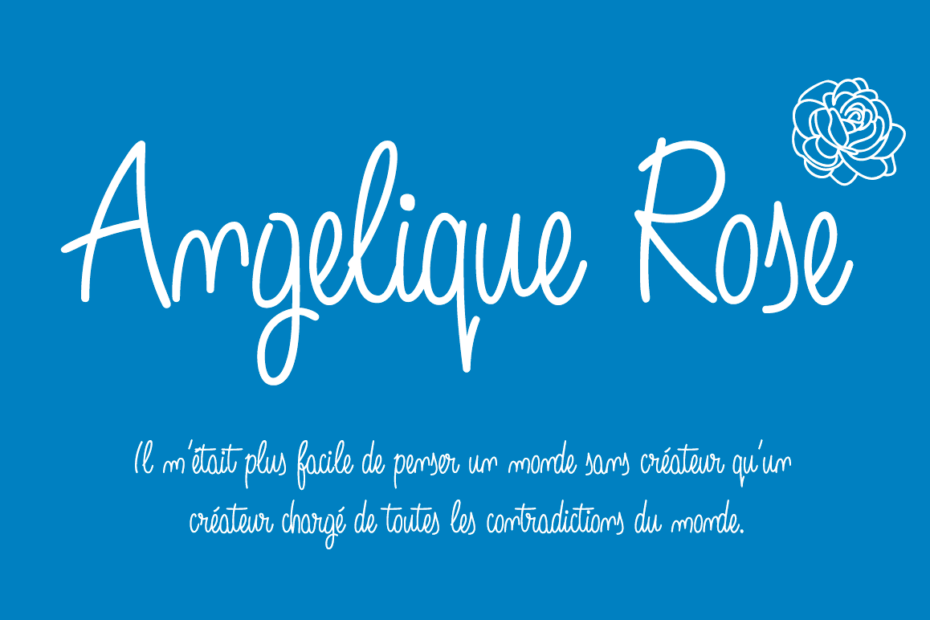
Unleashing the Art of Handwritten Fonts
Do you remember the thrill of doodling in your notebook as a child, watching your pen dance across the page as you brought your imagination to life? For designers and creatives, that same sense of excitement and freedom can be found in the perfect font. One such font that embodies this spirit is the Angelique Rose Font, a beautiful handwritten font drawn with love and care using pen and paper.
The Angelique Rose Font is more than just a font – it’s a tool that adds a touch of elegance and whimsy to any design project. Whether you’re a graphic designer, a writer, or a crafter, this font is sure to inspire your creativity and bring your projects to life. Its unique, handwritten style makes it a valuable asset for designers looking to add a personal touch to their work.
Angelique Rose Font Key Features
- Unique Characteristics: Elegant and feminine script font with intricate details and flourishes, ideal for wedding invitations, branding, and packaging
Angelique Rose Font Review
Overall, I think the Angelique Rose font has a lot of potential, but it also has some limitations that need to be considered. ✨ The font’s elegant and feminine design is sure to appeal to anyone looking for a beautiful, cursive script.
The font’s versatility is one of its strongest points. It can be used for a variety of purposes, from wedding invitations to fashion branding, and it’s sure to make a statement. ✨ The font’s intricate details and flowing lines give it a unique, hand-drawn feel that’s hard to find in digital fonts.
- ✨ Elegant and feminine design
- ✨ Versatile and suitable for various purposes
- ✨ Unique, hand-drawn feel
- ⚠️ Limited character set
- ⚠️ May not be suitable for body text
- ⚠️ Can be difficult to read at small font sizes
Overall, I think the Angelique Rose font is a beautiful addition to any designer’s toolkit, but it’s not without its limitations. With careful consideration and use, it can be a powerful tool for creating stunning, elegant designs.
Tips for Getting the Most Out of the Angelique Rose Font
Use the Angelique Rose Font for romantic and whimsical designs, such as wedding invitations, baby shower invitations, and floral arrangements.
Pair the font with soft, pastel colors to create a cohesive and feminine look.
Experiment with different font sizes and styles to add depth and visual interest to your design.
The Angelique Rose Font is commonly used for:
Baby shower invitations and decorations
Floral arrangements and botanical designs
Romantic and whimsical designs for social media and marketing materials